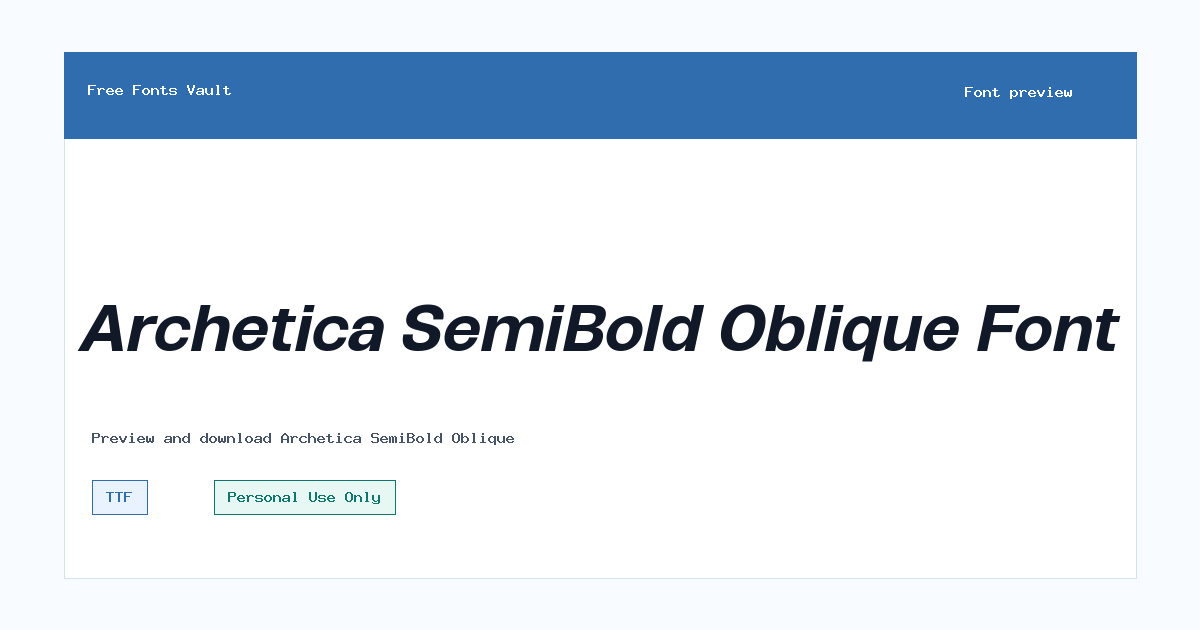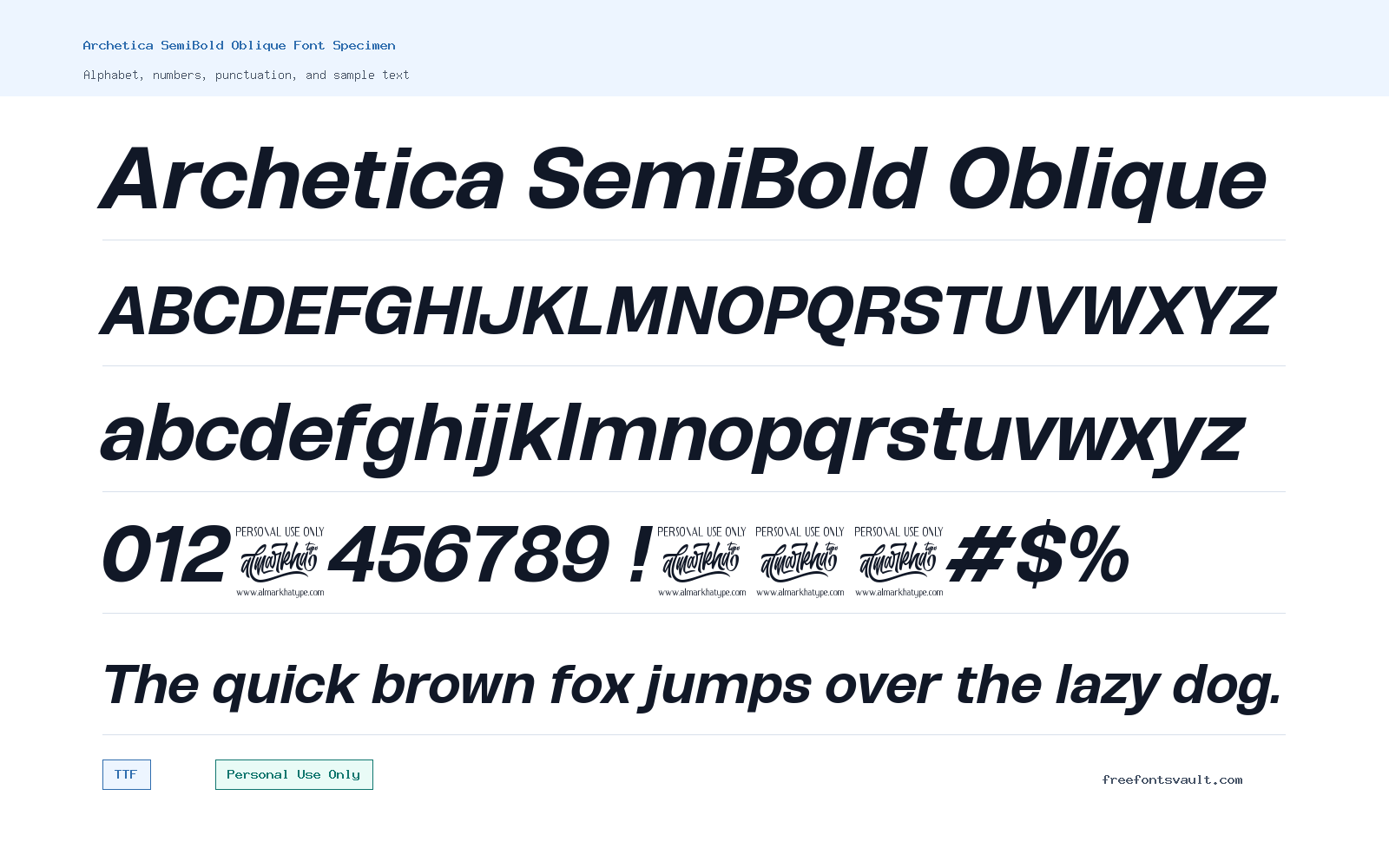
Archetica SemiBold Oblique
Archetica SemiBold Oblique Font
Archetica SemiBold Oblique is a slanted sans serif style from the Archetica family. Its angled letterforms and firm weight make it useful when you want text to feel active without moving into a decorative or script look.
About Archetica SemiBold Oblique
Archetica SemiBold Oblique works best as a display or emphasis style rather than a quiet body-text face. The oblique angle gives words a forward-leaning feel, while the semi-bold weight helps short lines hold their shape in headings, labels, posters, and preview graphics. Because the file is a sans serif design, it can fit clean modern layouts, but the slant adds more energy than an upright regular style. Use the preview box to test the exact words you plan to use, especially if your design depends on tight spacing, all caps, or a small logo lockup.
For logo work, Archetica SemiBold Oblique can be a useful starting point for personal sketches, mood boards, and client-free concept exploration. Try it with short names, initials, product labels, event titles, sports-style headlines, or digital banners where movement and confidence matter. In posters and social graphics, it can help a headline stand apart from supporting text. For web mockups, use it in hero titles, call-to-action text, navigation accents, or featured labels, then pair it with a calmer upright sans serif for longer reading. Avoid relying on it for dense paragraphs, small captions, or long mobile text, because oblique styles can become tiring when used heavily.
• Oblique sans serif style with a forward-leaning appearance for emphasis and display use.
• SemiBold-style naming with a strong weight suitable for short headings, labels, and logo drafts.
• Best suited to short text settings where the slant adds movement without using a script or decorative font.
• Personal logo concepts and wordmark experiments
• Poster headlines and event title graphics
• Web mockup hero text, buttons, and highlighted labels
• Social media graphics, banners, and short promotional layouts
• Sports, tech, fashion, or product concepts that need a clean slanted sans serif feel
• Typography pairing tests with upright sans serif or neutral body fonts
Use Archetica SemiBold Oblique where a short piece of text needs emphasis. It should pair well with a simple upright sans serif for body copy, captions, menus, or supporting information. Keep the oblique style for the most important words so the layout stays readable. When preparing a logo draft or poster, test uppercase and title case separately, adjust tracking if letters feel too tight, and confirm the license before using the result outside personal work.
What kind of font is Archetica SemiBold Oblique?
It is a slanted sans serif style from the Archetica family. The oblique form makes it useful for emphasis, titles, and short display text.
Is this font good for body text?
It is better for short text. The oblique angle and heavier style can work well in headlines and labels, but long paragraphs are usually easier to read in a neutral upright font.
What fonts should I pair with Archetica SemiBold Oblique?
Pair it with a clean upright sans serif for longer text. Let Archetica SemiBold Oblique handle headlines or accents, then use a simpler font for paragraphs, captions, and interface text.